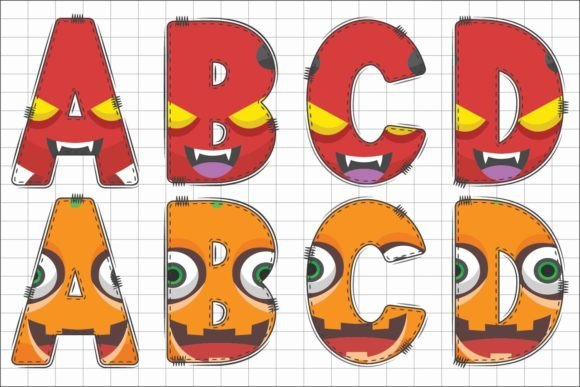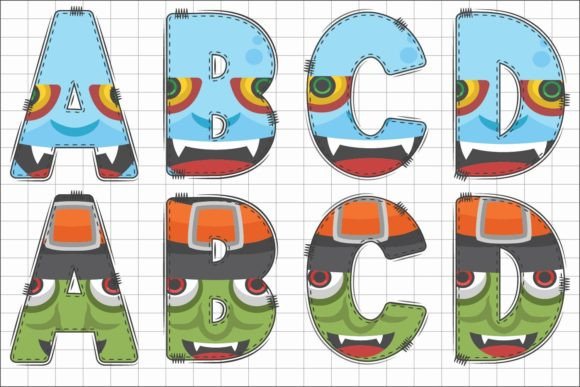
Introduction to Hippie Halloween Font
As you sit amidst the warm glow of string lights, surrounded by the eerie silence of a crisp autumn night, the creative juices start flowing. Your imagination sparks with the idea of designing a captivating Halloween project, one that embodies the whimsical essence of this bewitching night. The perfect font can elevate your design from ordinary to extraordinary, and that’s where the Hippie Halloween Font comes in – a magical bundle of four styles that will transport your creative project to a world of spooky charm.
For designers seeking a unique design resource, the Hippie Halloween Font is a treasure trove of high-quality, free downloads that can be used on a transparent background, allowing your creative vision to shine through. With its eclectic mix of styles, this font bundle is a valuable asset for any designer looking to add a touch of Halloween magic to their projects.
Key Features of Hippie Halloween Font
- Unique, hand-drawn design with a bohemian feel, perfect for creative projects.
- Includes a transparent background option for seamless integration into designs.
- Perfect for use in creative projects, such as posters, flyers, and social media graphics, requiring a playful and festive design.
Honest Review: Hippie Halloween Font
I recently stumbled upon the Hippie Halloween Font while searching for a design resource for my creative project. I was drawn to its playful and whimsical feel, which I thought would be perfect for a spooky-themed design.
The Hippie Halloween Font is a high-quality font that offers a lot of character and personality. It’s perfect for designers who want to add a touch of vintage charm to their designs.
- High-quality design: The font is well-designed and looks great on both light and dark backgrounds.
- Playful feel: The font’s playful and whimsical feel makes it perfect for creative projects.
- Transparent background: The font’s transparent background makes it easy to use in designs with complex backgrounds.
- Limited usage: The font may not be suitable for all types of designs, such as corporate or professional projects.
- Not suitable for small text: The font may be difficult to read in small sizes, making it better suited for larger text.
Overall, I’m impressed with the Hippie Halloween Font and would recommend it to designers who are looking for a unique and playful font for their creative projects.